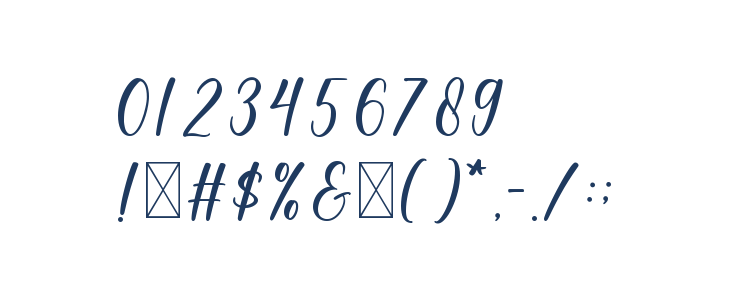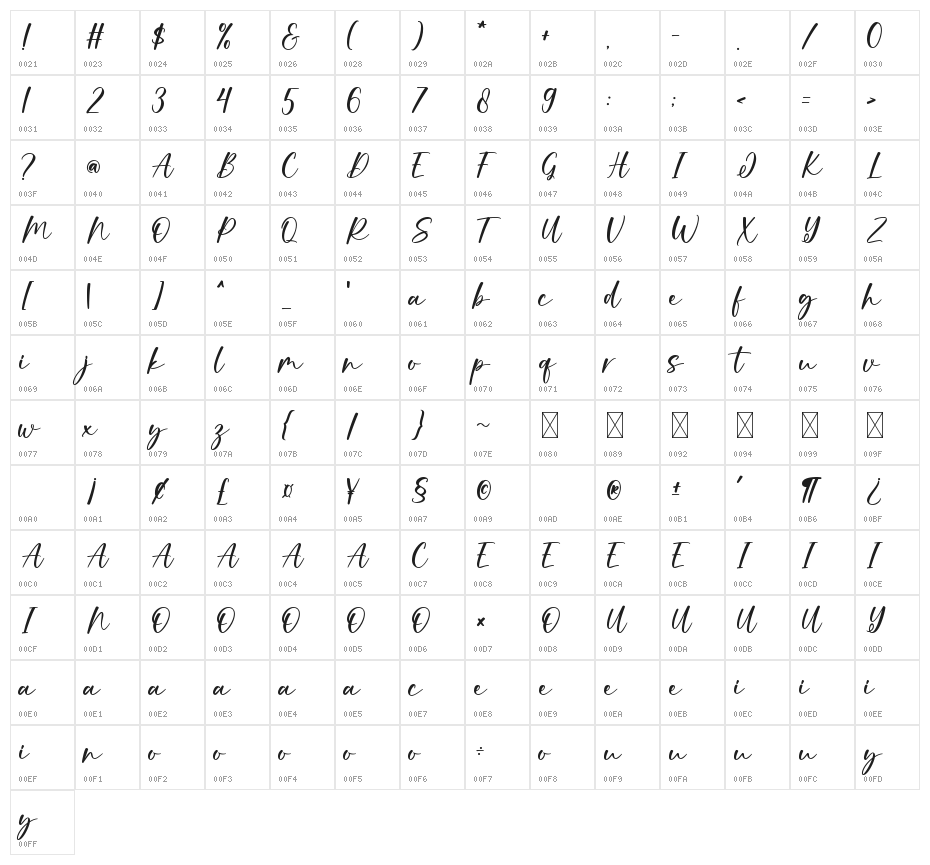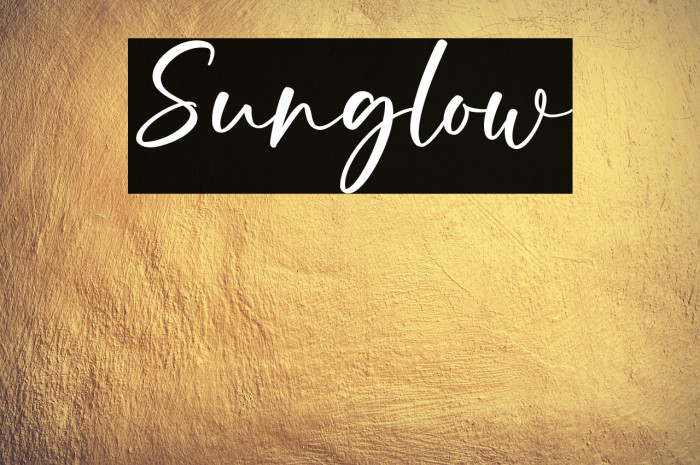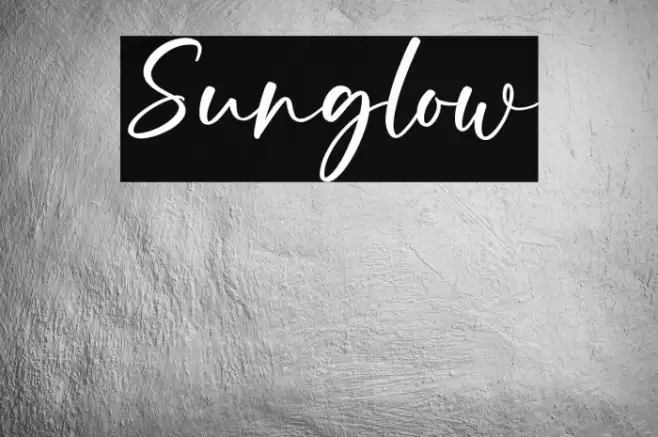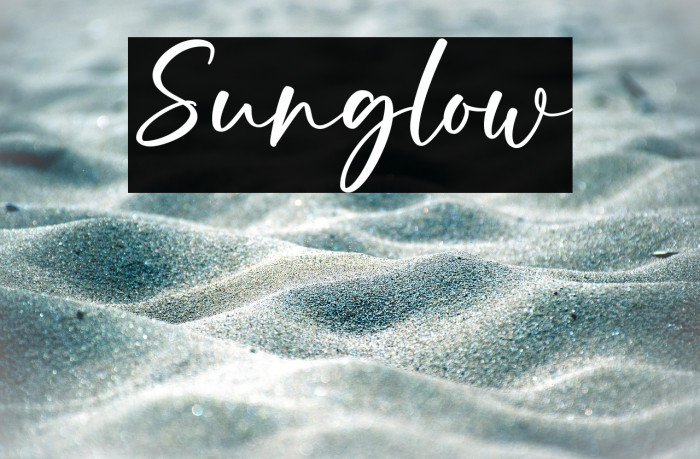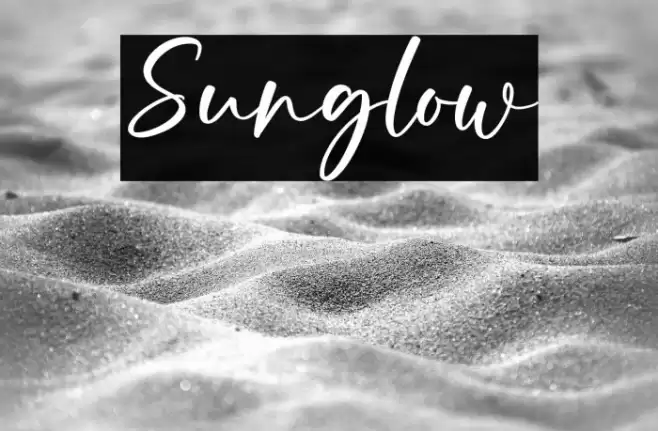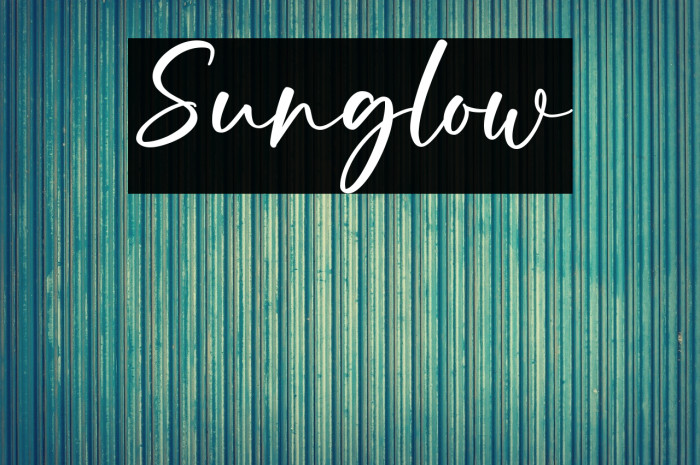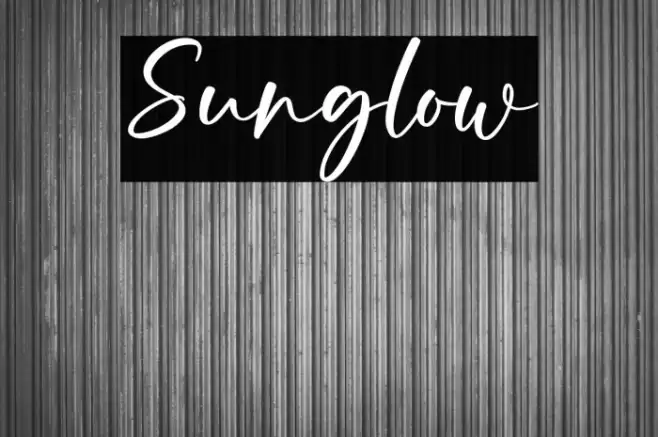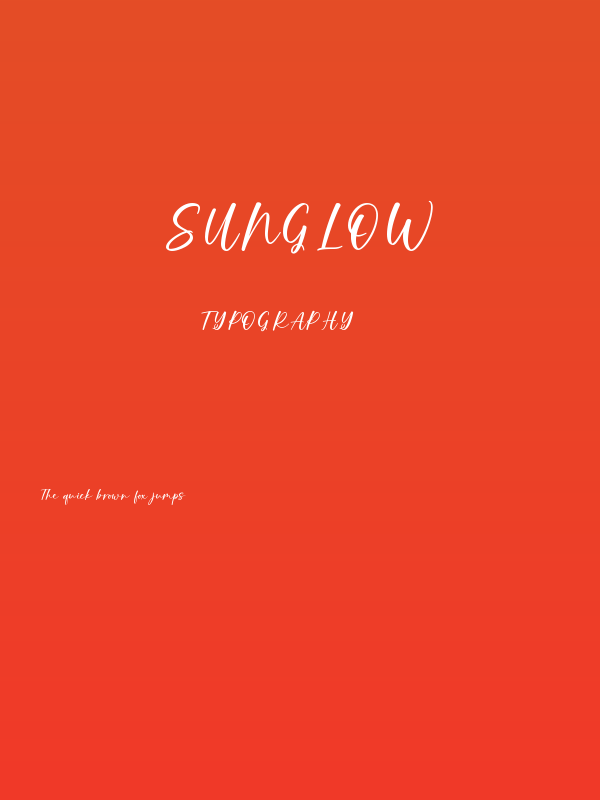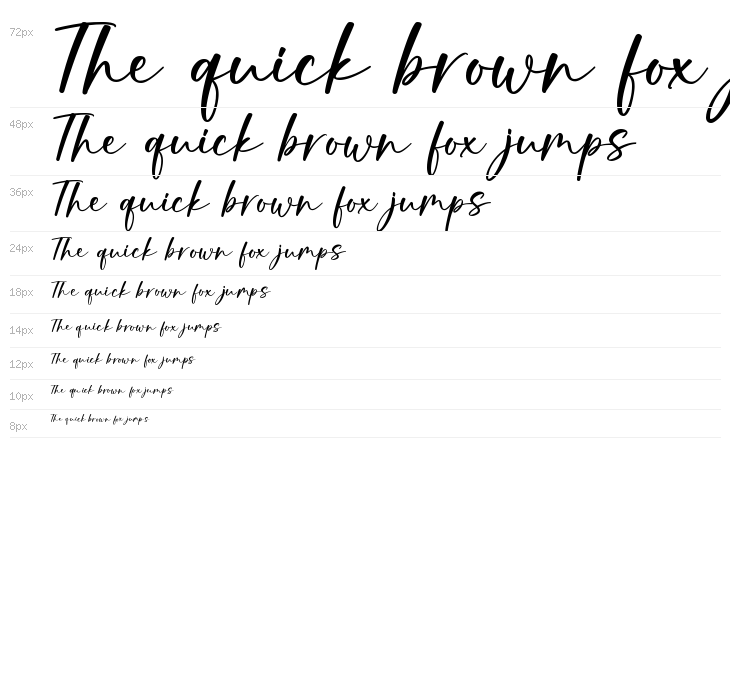
Sunglow Font
Sunglow Description
This font features a lively and flowing script style, characterized by its elegant and smooth curves. The letters are connected in a cursive manner, giving it a handwritten appearance. The uppercase letters are slightly more structured, while the lowercase letters exhibit a playful and dynamic flow. The numbers and special characters maintain the same fluidity, ensuring consistency throughout. This font exudes a sense of creativity and personal touch, making it ideal for projects that require a personal or artistic flair.
| Proposed Projects | Ideal for wedding invitations, greeting cards, personal branding, and artistic projects. |